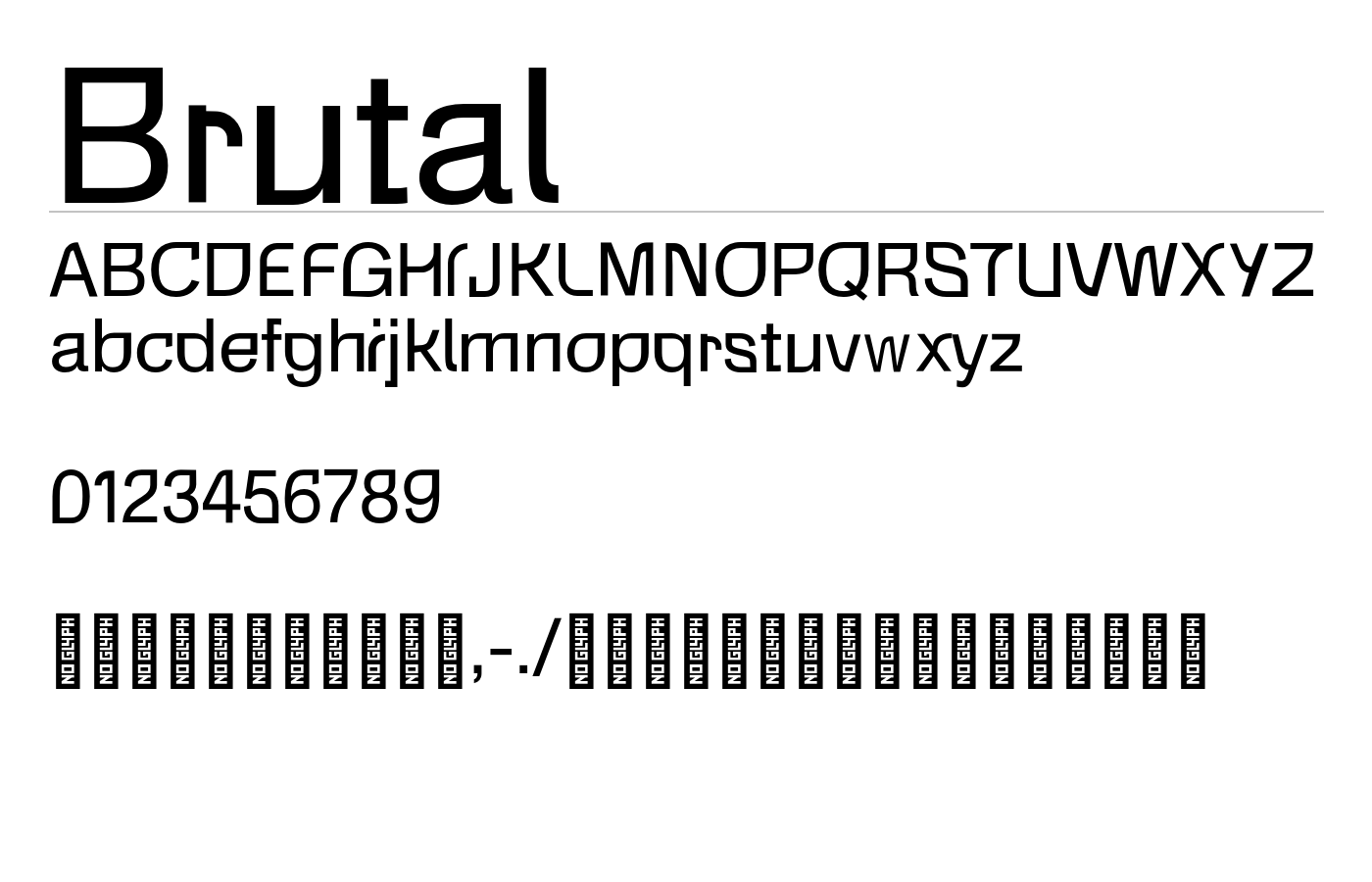
Brutal Font is a unique sans serif typeface characterized by its sharp, geometric letterforms and slightly condensed width, giving it a modern, edgy look. With its clean lines, distinctive angular details, and consistent stroke weight, it conveys a bold and industrial personality ideal for contemporary branding, headlines, and editorial designs seeking a striking, unconventional style. This font works well where a strong visual impact is needed without sacrificing legibility.
Brutal Font
About Brutal Font
| Font family | Brutal Font |
| Designer | Nathan Mandon |